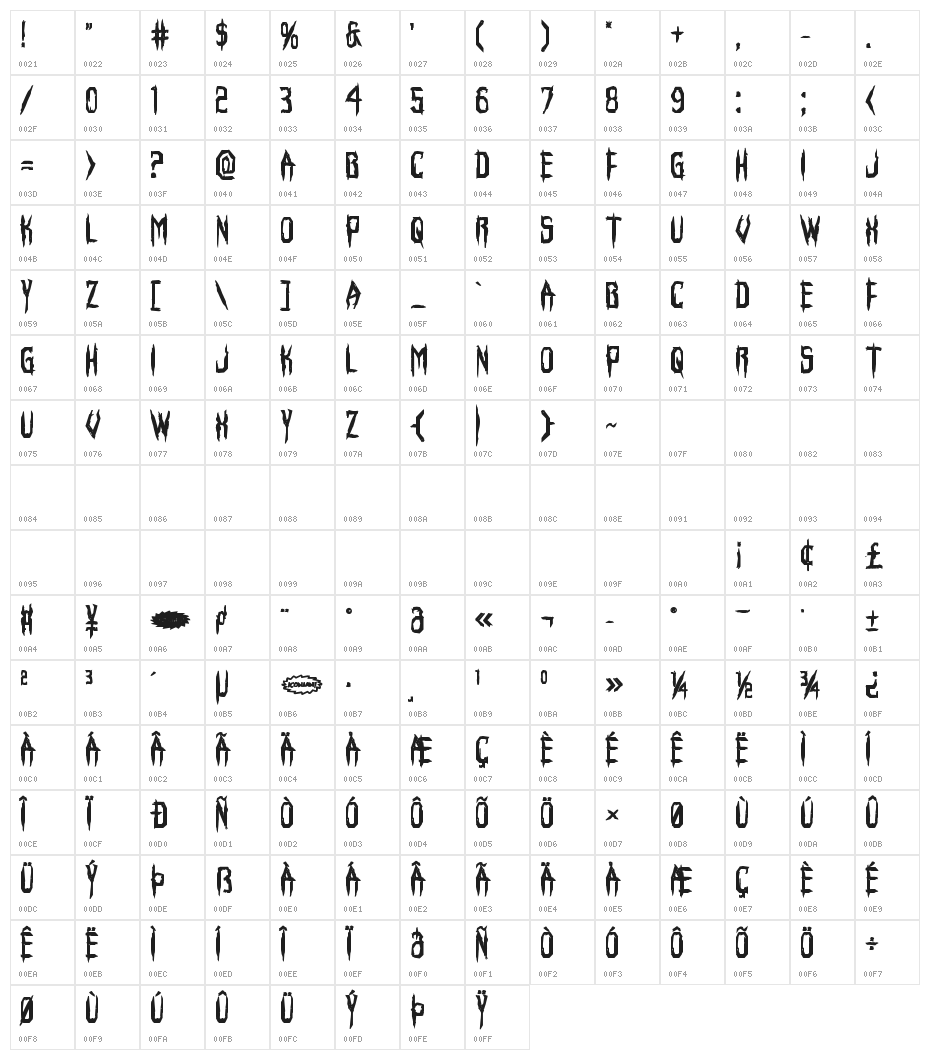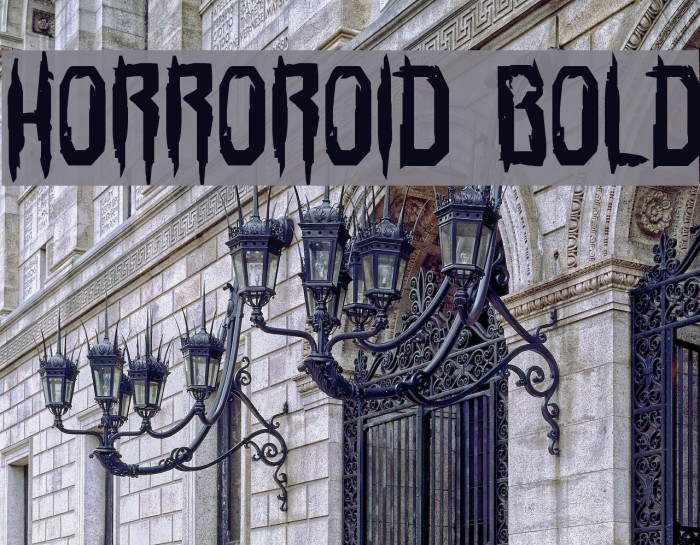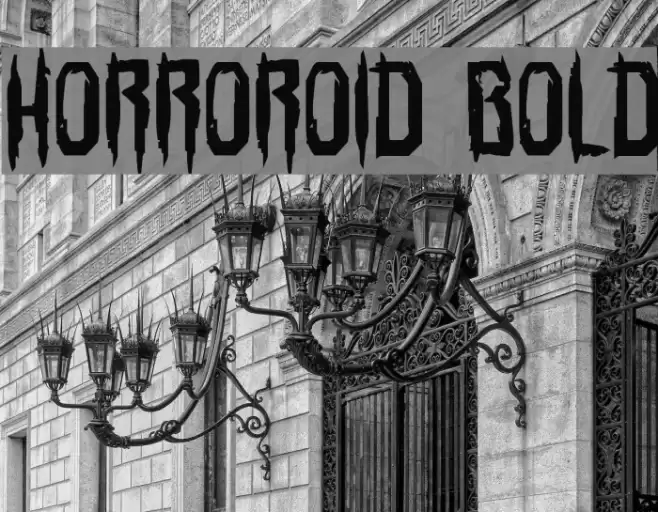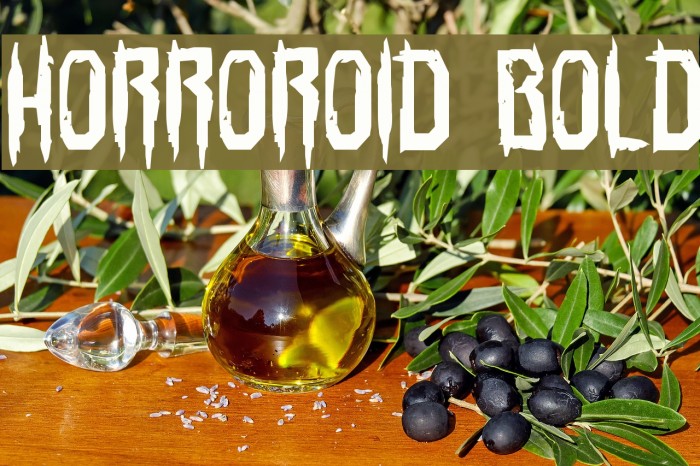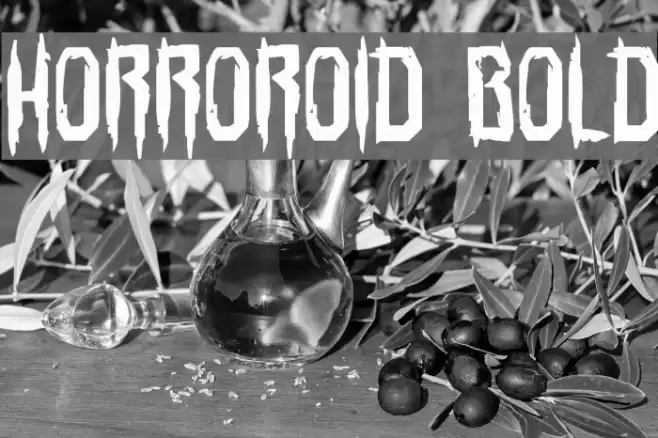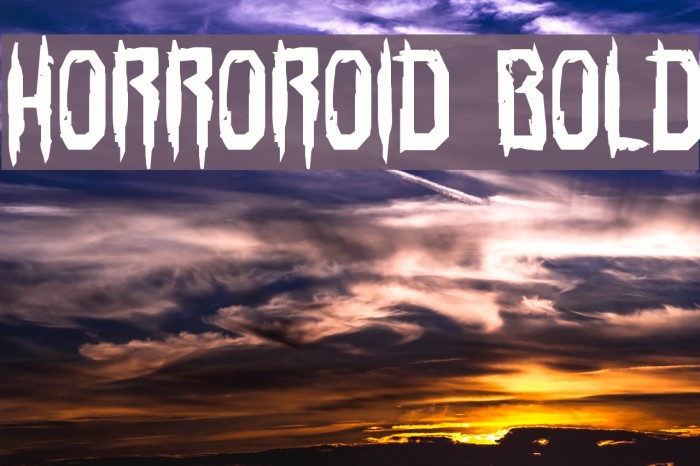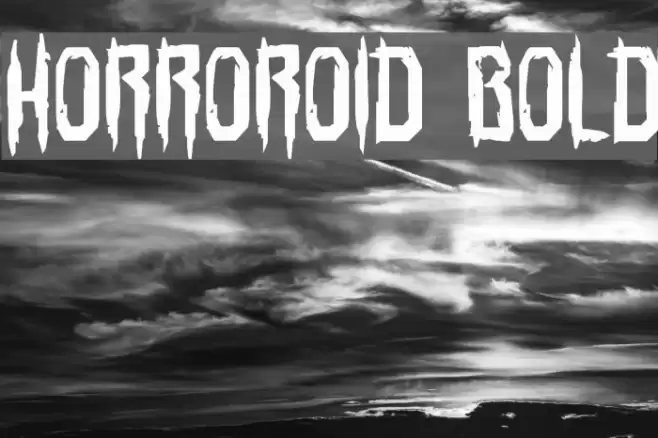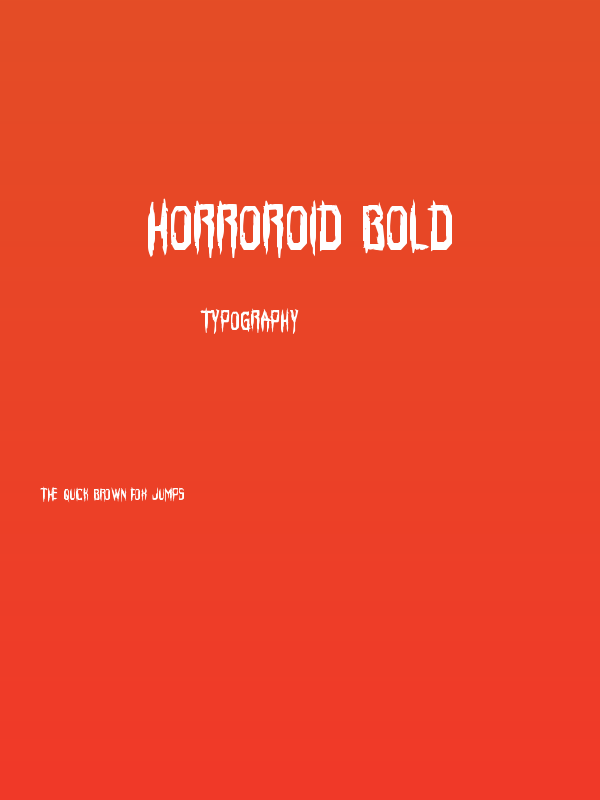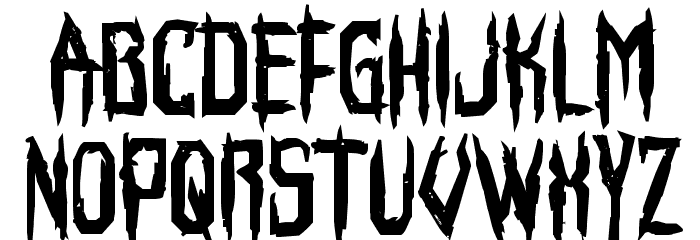
Horroroid Bold Font
Horroroid Bold Description
This font features a bold and jagged design, reminiscent of horror themes. The characters have sharp, irregular edges that give a sense of unease and intensity. Each letter is distinct, with a rough texture that adds to the eerie aesthetic. The numbers and special characters follow the same style, maintaining consistency throughout. This font is perfect for creating a chilling atmosphere in any design project, making it ideal for Halloween-themed graphics or horror movie posters.
| Proposed Projects | Ideal for Halloween graphics, horror movie posters, spooky event invitations, and themed merchandise. |